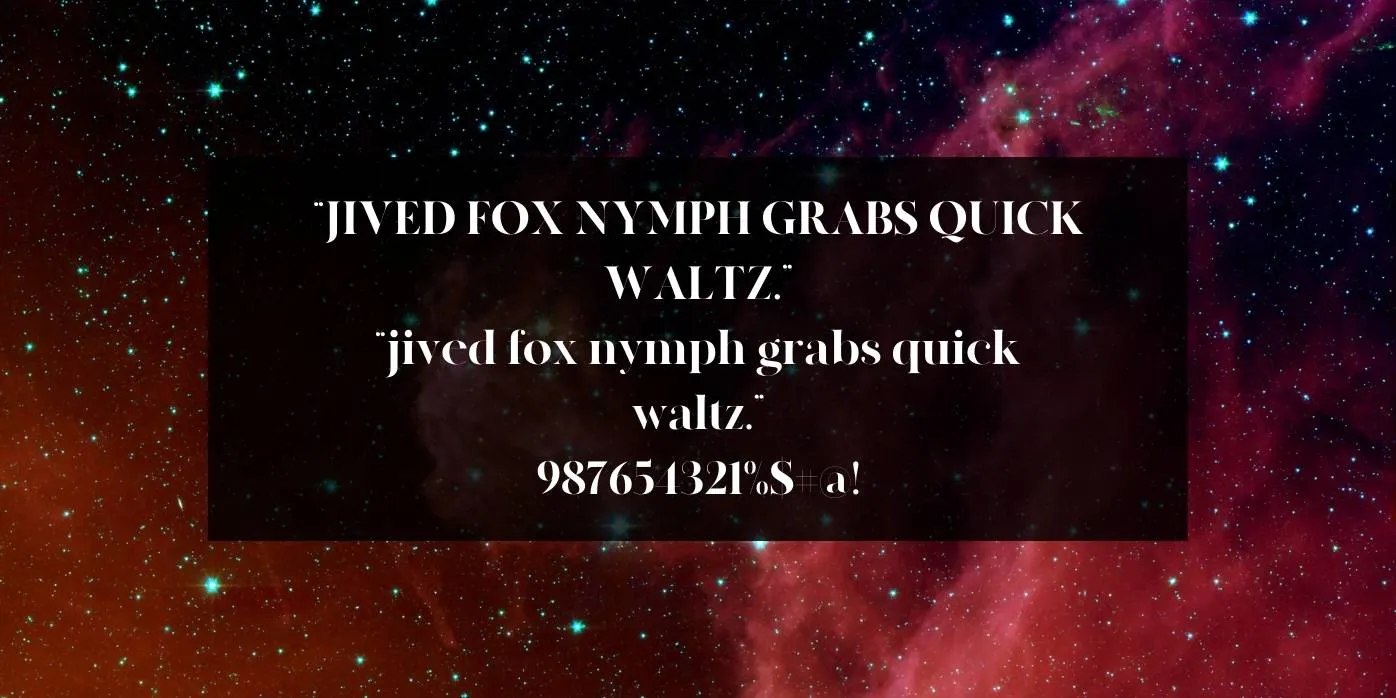
MADE Canvas Font
In this typeface, we discuss a staggering typeface known as MADE Canvas Font. This family was developed by Made Type Foundry. This family belongs to the category of serif fonts. This typeface has thirty-two styles.
MADE Canvas Typeface was firstly released in 2013. This font supports many languages such as Spanish, Portuguese, German, French, and English. MADE Canvas Typeface includes features like old-style figures, proportional figures, fractions, tabular figures, ligatures, case-sensitive forms, superscripts, and subscripts. It is not a part of google fonts you can download it from our website.
The generator tool of this family is classic. This serif typeface possesses a unique trait. The shapes of the letters are designed to appear as if they were created with a brush. The family is available in two versions: Standard and Alternate.
The Alternate version features softer letterforms. This font has an extensive character set that covers over 200 Latin-based languages.